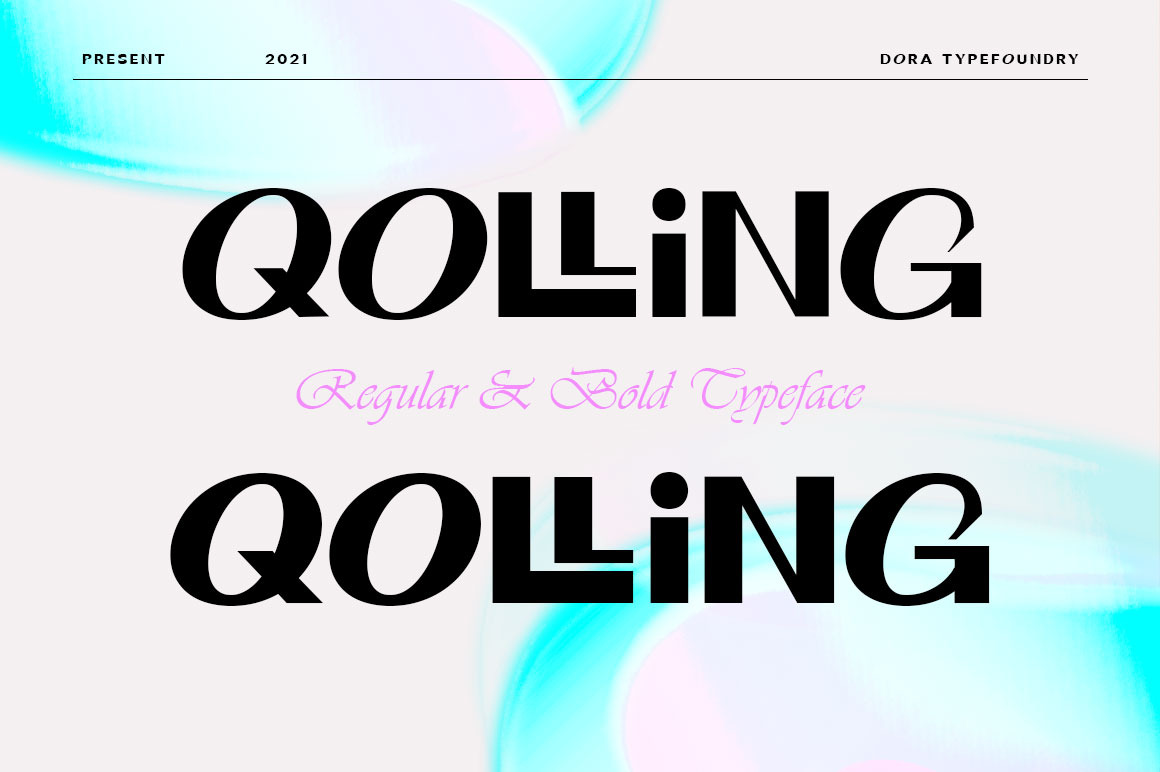
Qolling Display Font
Introducing Qolling is a modern display font, designed for maximum visual and emotional impact. It has a classy and elegant look, Qolling gives your words a powerful sound and is fun to use in your graphic design and screen use projects such as branding, magazines, editorials. , wedding invitations, logo designs, posters, social media and more!